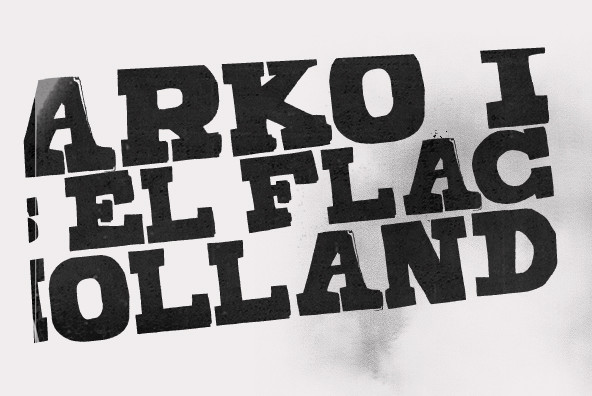
Joseph is a brand new slab-serif face designed by TOMO. With a wood type look - letterpress print technic, this fatty come in handy when is time to design an informal —yet strong—looking communication piece. Ideal for promotion-matter.